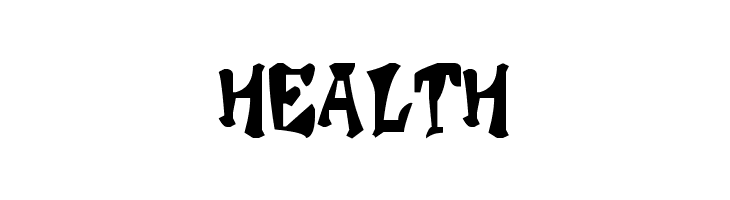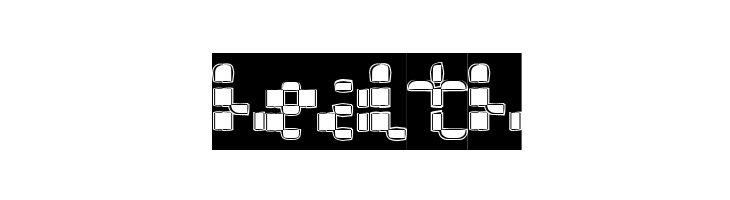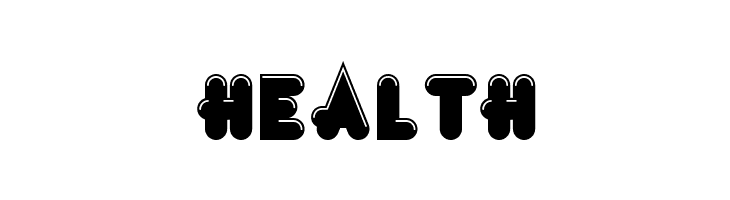
Bonus Bling Bling Font
A modern, line-patterned font with a futuristic and dynamic style.
Friday13 Bonus NFI Font
A bold, hand-drawn font with a rugged, graffiti-inspired style.
Oh Mai Mai Font
A playful, bubbly font with thick, rounded shapes and a whimsical style.
Walkway Bonus Font
The image contains decorative elements, not a valid font.
Bonus Base Font
A modern, rounded font with bold, consistent strokes and a playful style.
Bonus Shiny Outline Font
A bold, playful font with a shiny outline and three-dimensional effect.
Ardour GM Font
A bold, modern font with a geometric and slightly condensed style.
Bonus Coffee Font
A playful, bold font with rounded, thick strokes and a friendly appearance.
Bonus Coffee Font
A playful, rounded font with bold, smooth curves and a friendly appearance.
Z BONUS 01 Font
A bold, modern sans-serif font with clean lines and uniform strokes.
Friday13BonusNFI Font
A bold, edgy font with dynamic, uneven strokes and a strong visual impact.
Refresh bonus Regular Font
A playful set of hand-drawn doodles with a whimsical, sketch-like style.
Bonushora Font
A futuristic, pixelated font with a tech-inspired, geometric design.
Super Bonus Font
A bold, angular font with sharp edges and a dynamic style.
Refresh bonus Regular Font
A playful, hand-drawn doodle font with charming icons and a casual style.
Anak Cute Bonus Font
A playful set of hand-drawn doodles depicting various objects and scenes.
Anak Cute Bonus Font
A playful set of doodle-style icons with a hand-drawn, whimsical feel.
Andrilabonus Font
An elegant script font with intricate swirls and decorative flourishes.